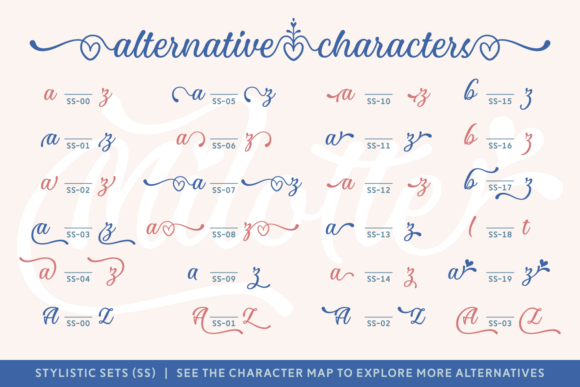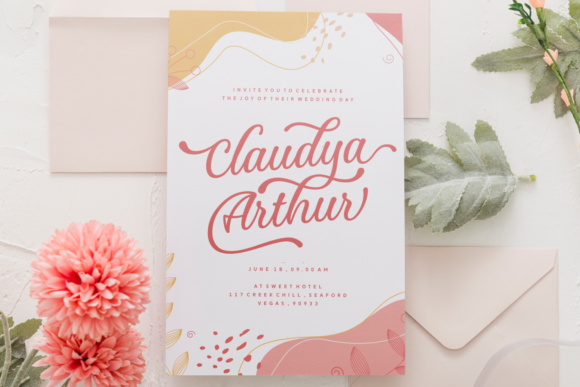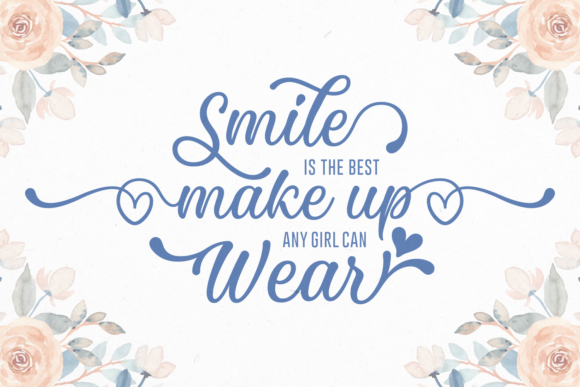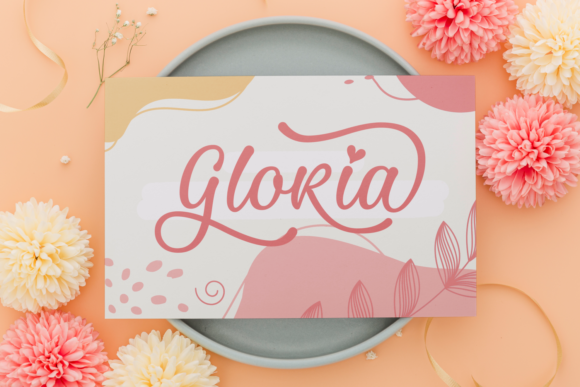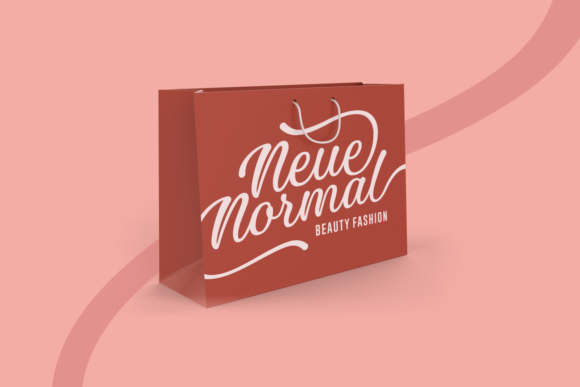
Milotte Font – Free Download
Introduction to Milotte Font
Milotte is a gorgeous and sophisticated handwritten font.
It features an incredibly classic style, while still keeping a friendly feel Milotte is the perfect font for making original and outstanding designs.
Key Features of Milotte Font
Why Choose Milotte Font?